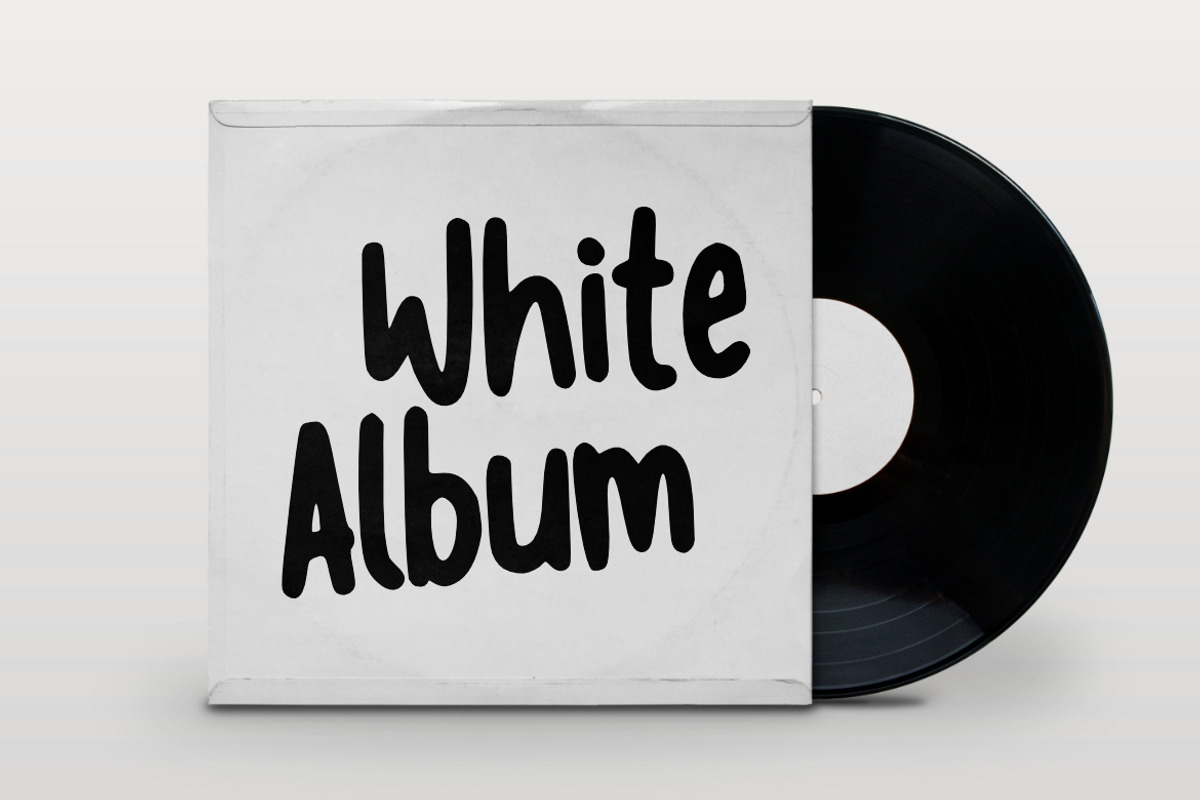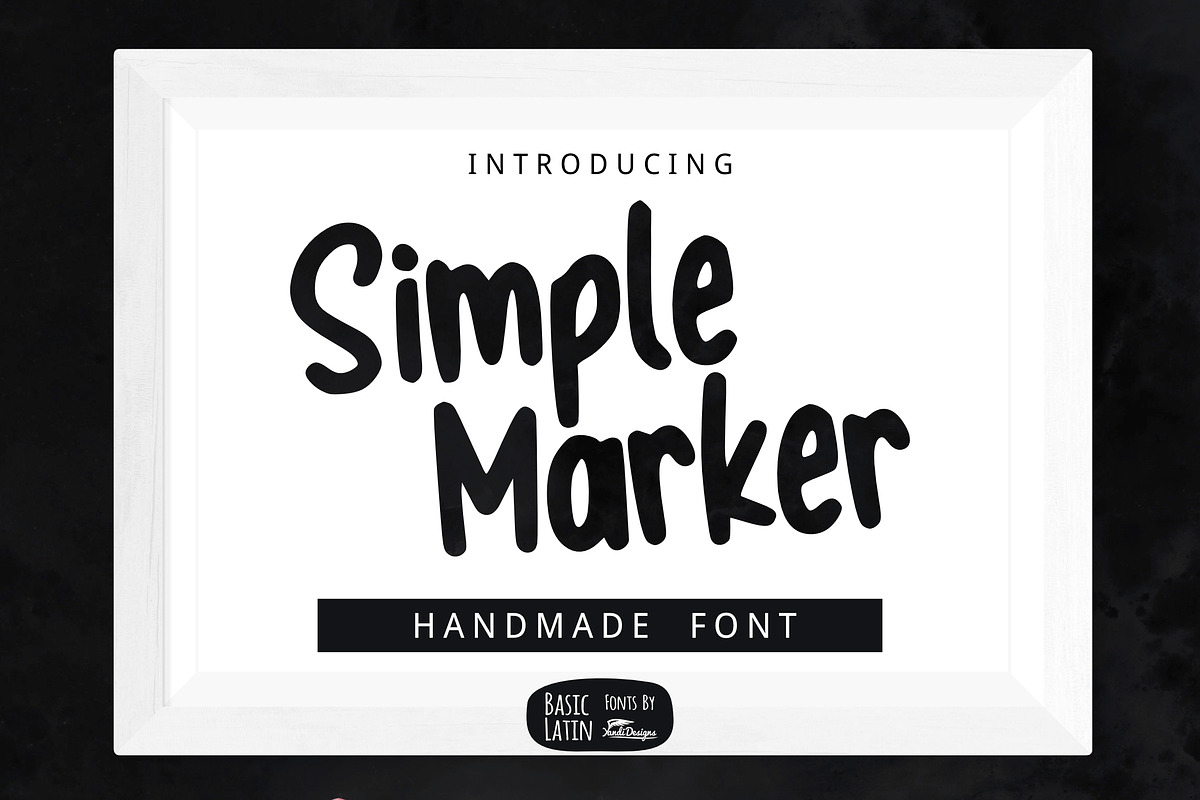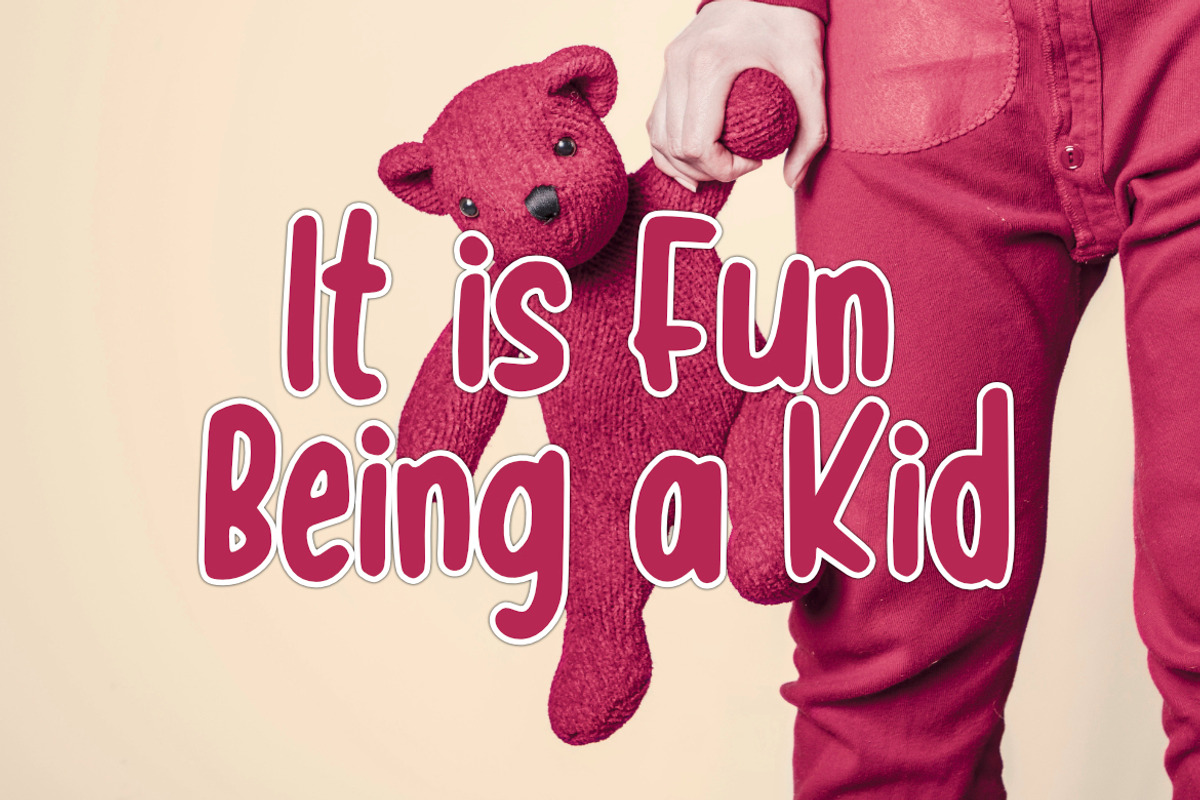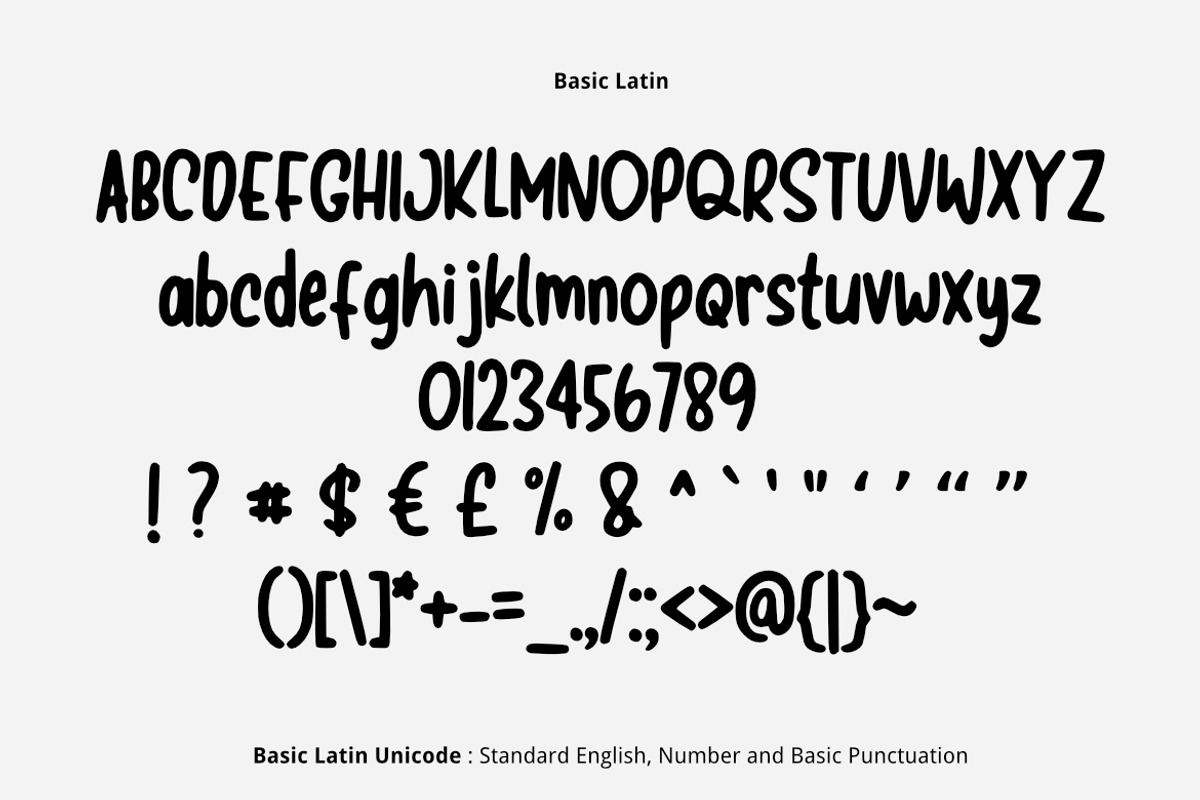
Simple Marker Font
Simple Marker is lovely , cute, simple, multipurpose handwritten marker font , suitable for many project children book, quotes, logo , heading , title etc. Summer and holiday font.
Simple Marker Font by YandiDesigns fits naturally into Branding, posters, packaging, typography.